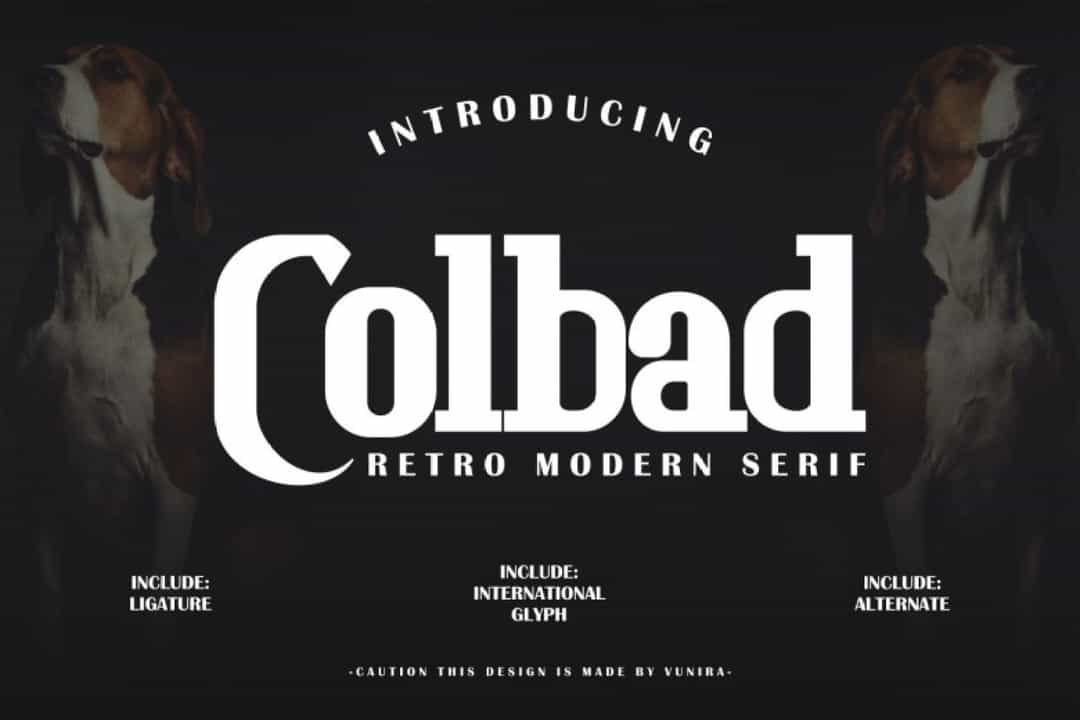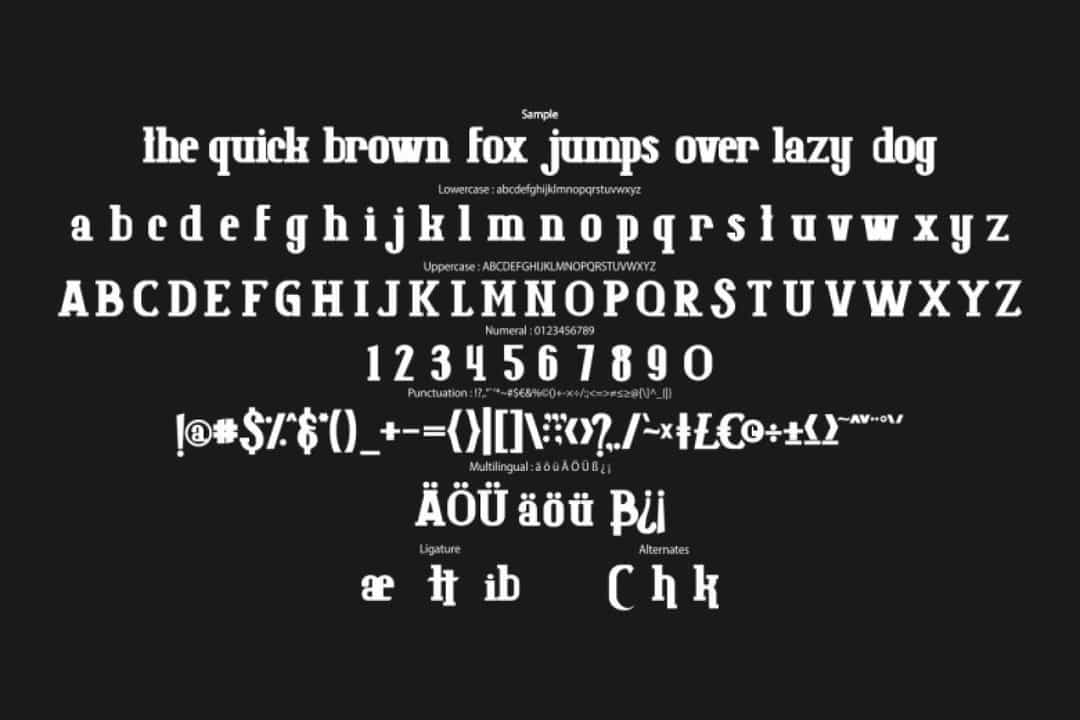
Colbad can be described as an elegant and distinct serif font with a nostalgic vibe and stunning vintage aesthetic. With its beautiful letter arrangement, Colbad stands out as an attractive typeface in both formal and casual settings.